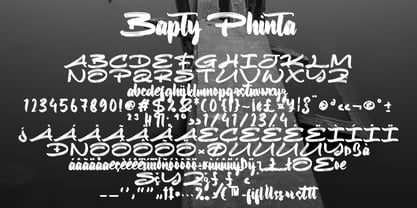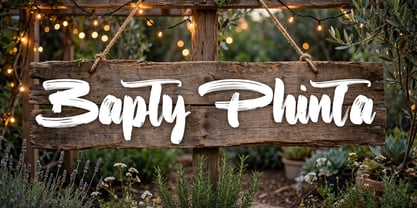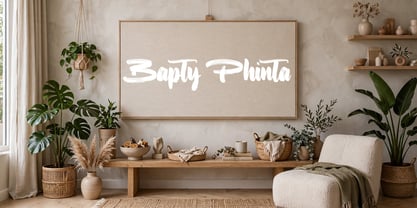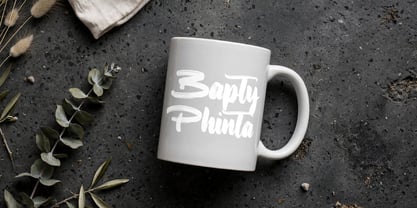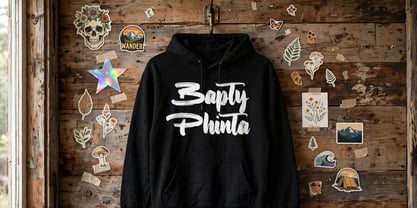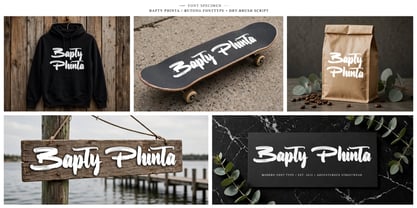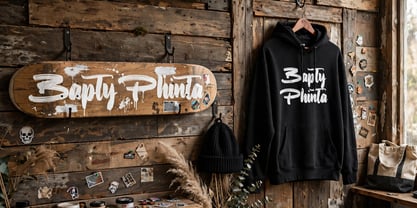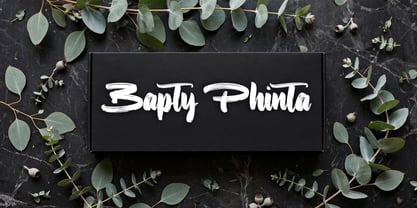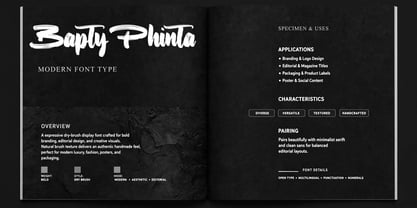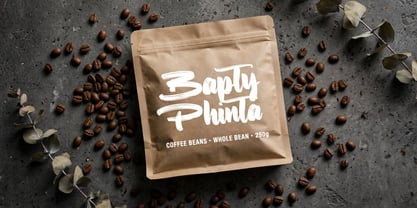
Bapty Phinta
by Ayska
The Bapty Phinta Font Family was designed by Dhoni Trihatmoko and published by Ayska. Bapty Phinta contains 1 styles. More about this family
Unleash the captivating aura of Bapty Phinta, a distinctive font that echoes the vibe of modern chic, intertwined with a touch of effortless, handwritten elegance. Bapty Phinta, a handcrafted font, exudes individuality and sophisticated charm, making it the perfect ally on your digital creation journey. Use its unique blend of charisma to enamor your blog visitors, add exclusivity to your digital planner designs, weave character into your invitations or convey sincere emotions in your handmade greeting cards. Experience the vintage allure and ingenuity of Bapty Phinta as you innovate with your memory-laden photo albums or your bespoke decorations. This font's striking appeal coverts simple digital visuals into extraordinary, attention-grabbing artwork. Let Bapty Phinta be the anchor in your creative sea, creating a symphony of impressive imprints. Revel in the artistic magic of Bapty Phinta, and witness it delicately morph your artistic aspirations into clear-cut masterpieces.
Designers: Dhoni Trihatmoko
Foundry: Ayska